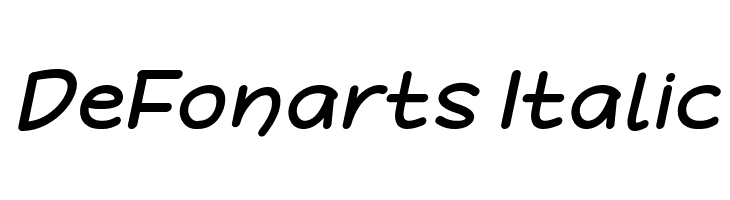
A bold, rounded font with uniform strokes and a modern, geometric style.
A bold, rounded, and italic font with a modern and friendly appearance.
A bold, rounded, and italic font with a modern, playful style.
A bold, rounded font with a modern and playful style.
A bold, geometric font with a mesh-like pattern and rounded edges.
A bold, geometric font with a mesh-like pattern inside each character.
A bold, geometric font with intricate line patterns and rounded shapes.
A geometric, wireframe-style font with bold outlines and intricate triangular patterns.
Ornate decorative initials with floral motifs in a vintage style.
A playful, hand-drawn font with bold, irregular strokes and a dynamic feel.
A bold, hand-drawn font with a playful and dynamic style.
A spiky, aggressive display font with sharp, jagged forms.
A bold, sketch-like font with a dynamic, hand-drawn appearance.
A bold, expressive font with a hand-drawn, energetic style.
A bold, rounded font with a playful and whimsical style.
A bold, playful font with rounded, thick strokes and whimsical character designs.
A bold, expressive script font with flowing, cursive letterforms and playful style.
A whimsical, hand-drawn font with elongated, flowing characters.
A bold, geometric font with a modern and structured design.
A geometric, angular font with a futuristic and technical style.
A clean, modern sans-serif font with geometric structure and high readability.
A clean, modern sans-serif typeface with balanced proportions and excellent readability.
A bold, shadowed font with a modern, three-dimensional style.
A clean and modern sans-serif font with excellent readability and balance.
A classic blackletter font with ornate, gothic letterforms.
An elegant and versatile font with flowing curves and intricate details.
A bold, rugged font with a hand-crafted, distressed appearance.
A bold, 3D, comic-style font with irregular, outlined characters.